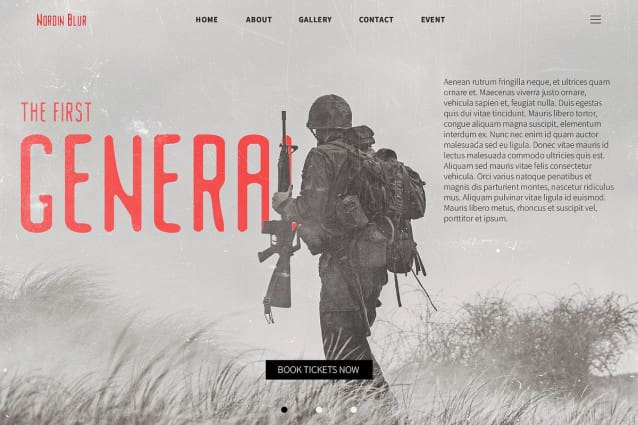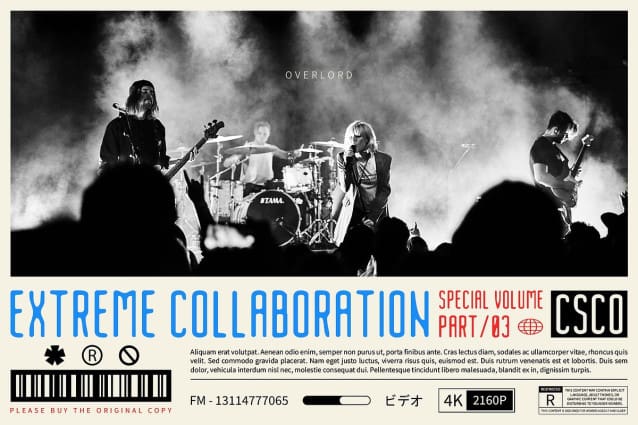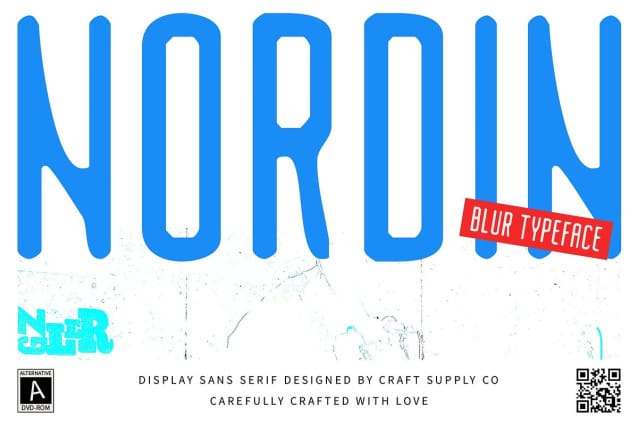
Nordin Blur Font
Nordin Blur Font is a modern sans-serif font distinguished by its condensed form and sleek, contemporary design. Featuring narrow proportions and clean lines, it embodies a minimalist aesthetic while maintaining clarity and precision in its structure.
Dynamic Blur Effect The blur effect integrated into Nordin Blur introduces an added layer of visual depth and uniqueness. This dynamic touch not only enhances the font’s futuristic appeal but also provides a sense of motion, making it stand out in various design contexts.
Ideal for Modern Applications Perfect for a range of uses including branding, web design, and promotional materials, Nordin Blur offers clear readability while delivering a modern and sophisticated impression. Its combination of sleek lines and dynamic blur effect makes it an excellent choice for projects that aim to convey a cutting-edge, futuristic look.
Sophisticated and Versatile Whether used in high-tech branding, digital interfaces, or marketing materials, Nordin Blur provides a sophisticated and versatile solution. Its modern design and unique blur effect ensure it makes a memorable impact while remaining highly functional and readable across different mediums.